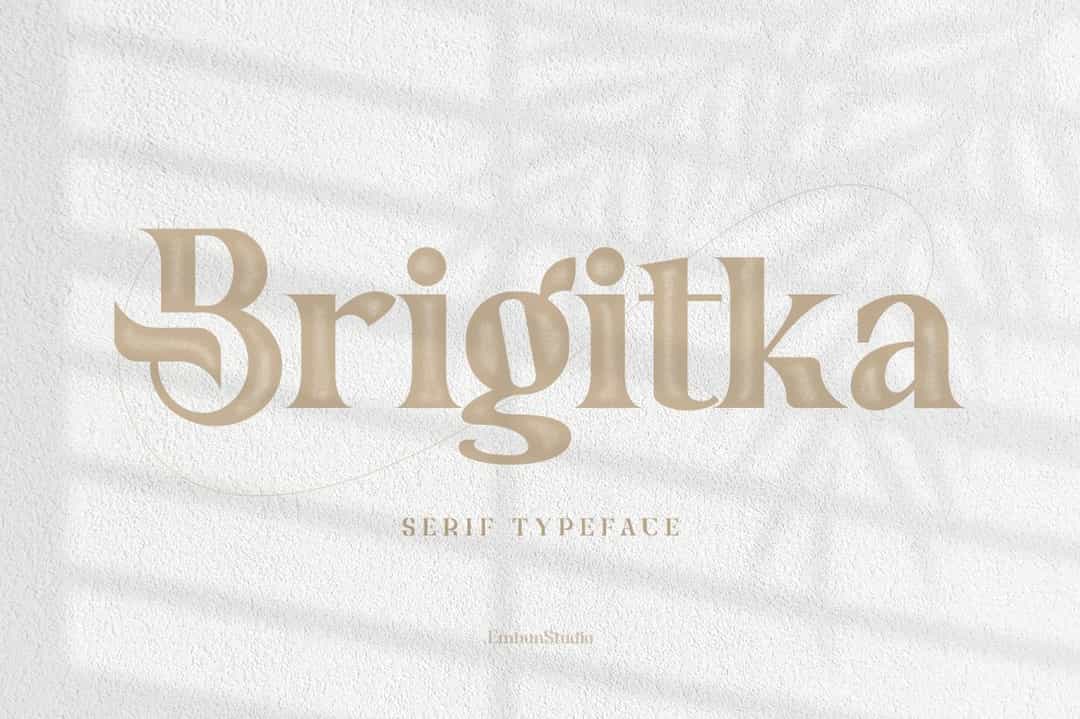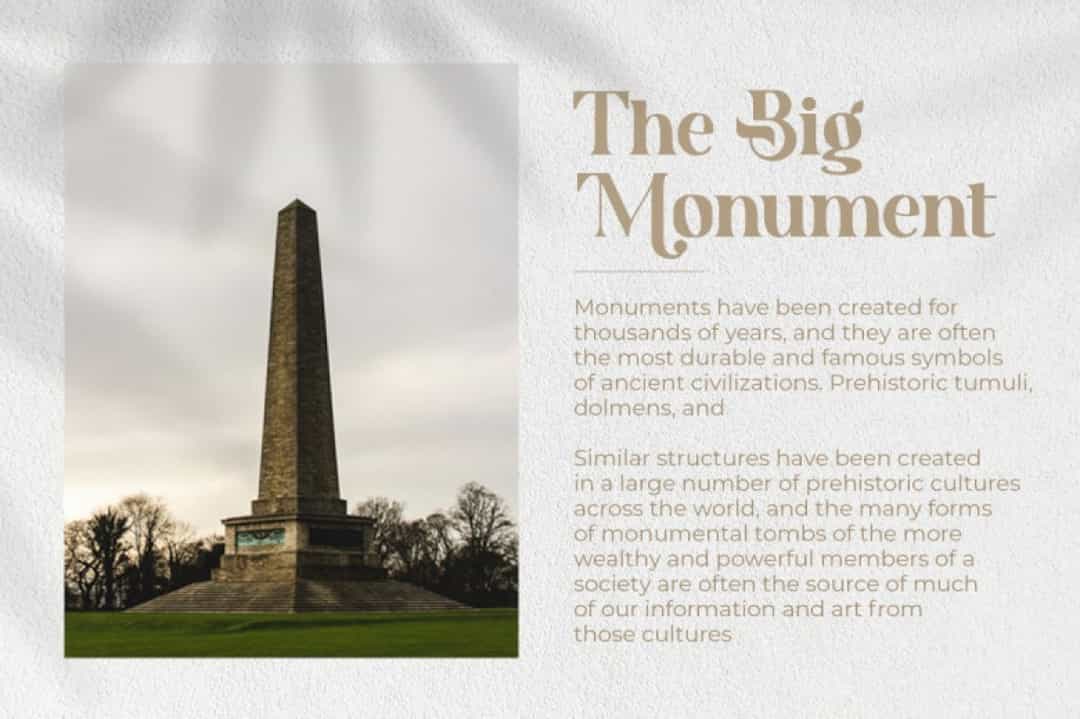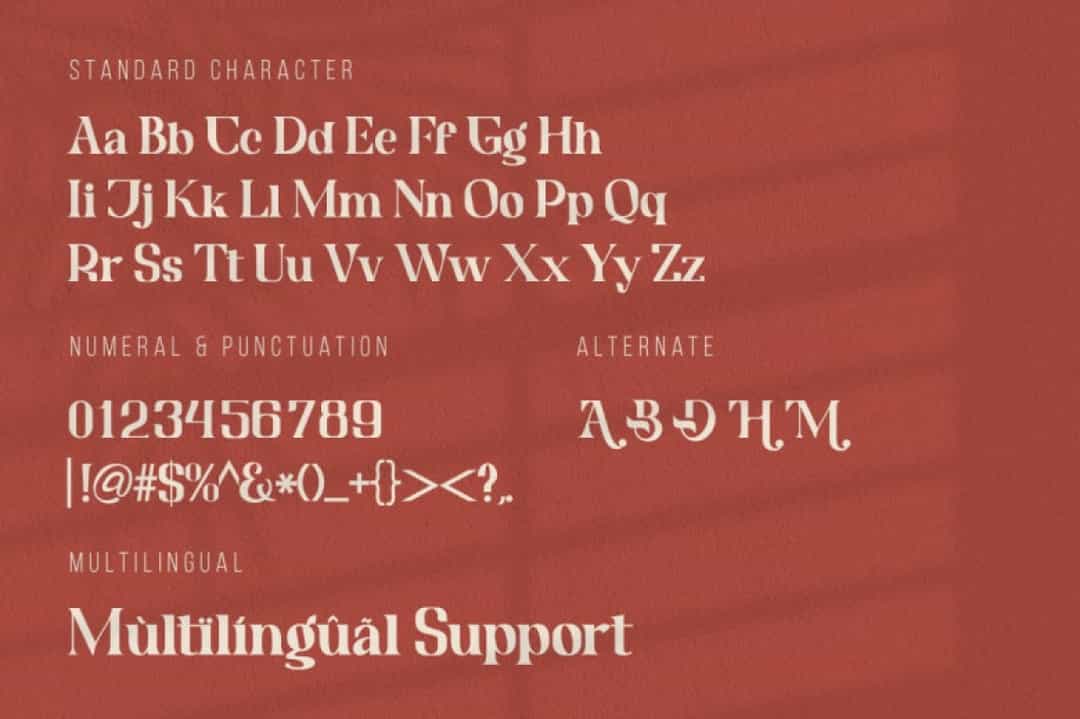
Brigitka Serif Font!!This serif font is perfect for use in branding endeavors aimed at your business, offering sleek, modern elegance with minimalist yet attractive designs. Brigitka stands out as an attractive font choice that offers simplicity yet style!